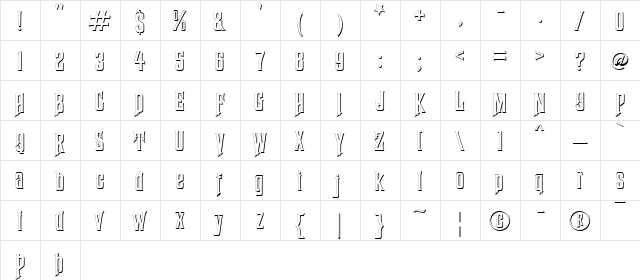
Haunted Mouse Shadow Alt Regular
| Designer | Steve Ferrera |
Design Context for Haunted Mouse Shadow Alt Typeface
Haunted Mouse Shadow Alt is built around its visual character rather than neutral utility — its distinctive forms are designed to make an impression at display sizes.
Font Pairing: Pair with a clean neutral sans-serif for body copy to let Haunted Mouse Shadow Alt's character lead without overwhelming the composition.
Pro Tip: Use Haunted Mouse Shadow Alt exclusively at display sizes — it was designed to be seen, not read at length. Let a neutral companion handle body copy.